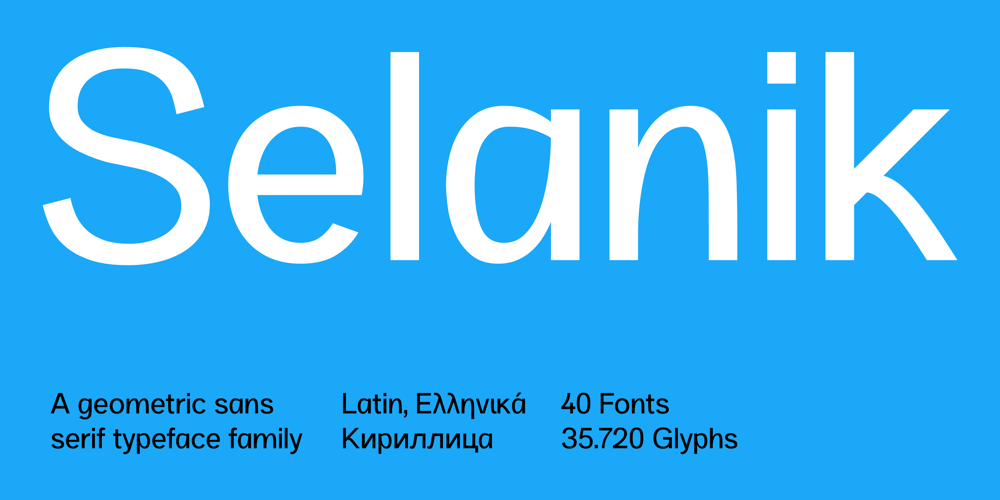
SK Selanik Font Family was designed by Salih Kizilkaya and published by Salih Kizilkaya. SK Selanik contains 40 styles and family package options. SK Selanik is a double weight geometric sans serif font family. It is named after Thessaloniki, one of the largest cities in Greece. This font, which depicts the historical texture of Thessaloniki with modern forms, is a synthesis of the past and today’s design understanding.This font family includes a total of 40 fonts and 35,720 glyphs. It offers full support for the Latin, Greek and Cyrillic alphabets and supports hundreds of different languages. In this way, it contains all the typographic elements you will need. You can easily use it in all areas and sizes you need, from headings to body texts.You can visit my Behance account by clicking here to view more detailed project images.